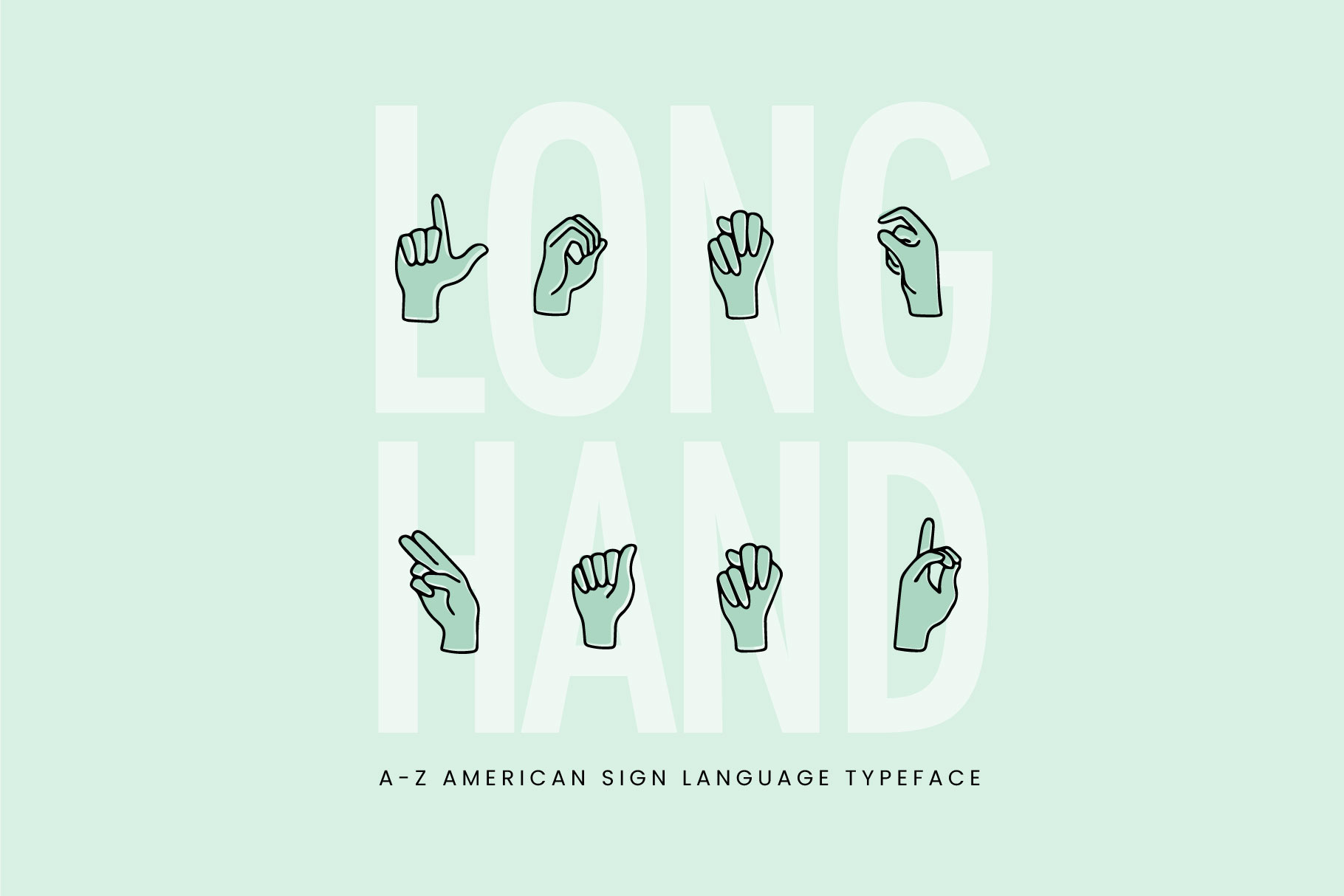
"Long Hand" ASL Sign Language Font
Long Hand American Sign Language (ASL) Font
Meet "Long Hand", an American Sign Language Font. Use this font to learn and practice ASL!
"Long Hand" comes in 2 versions, outline and solid. It includes the 26 letters of the English alphabet.